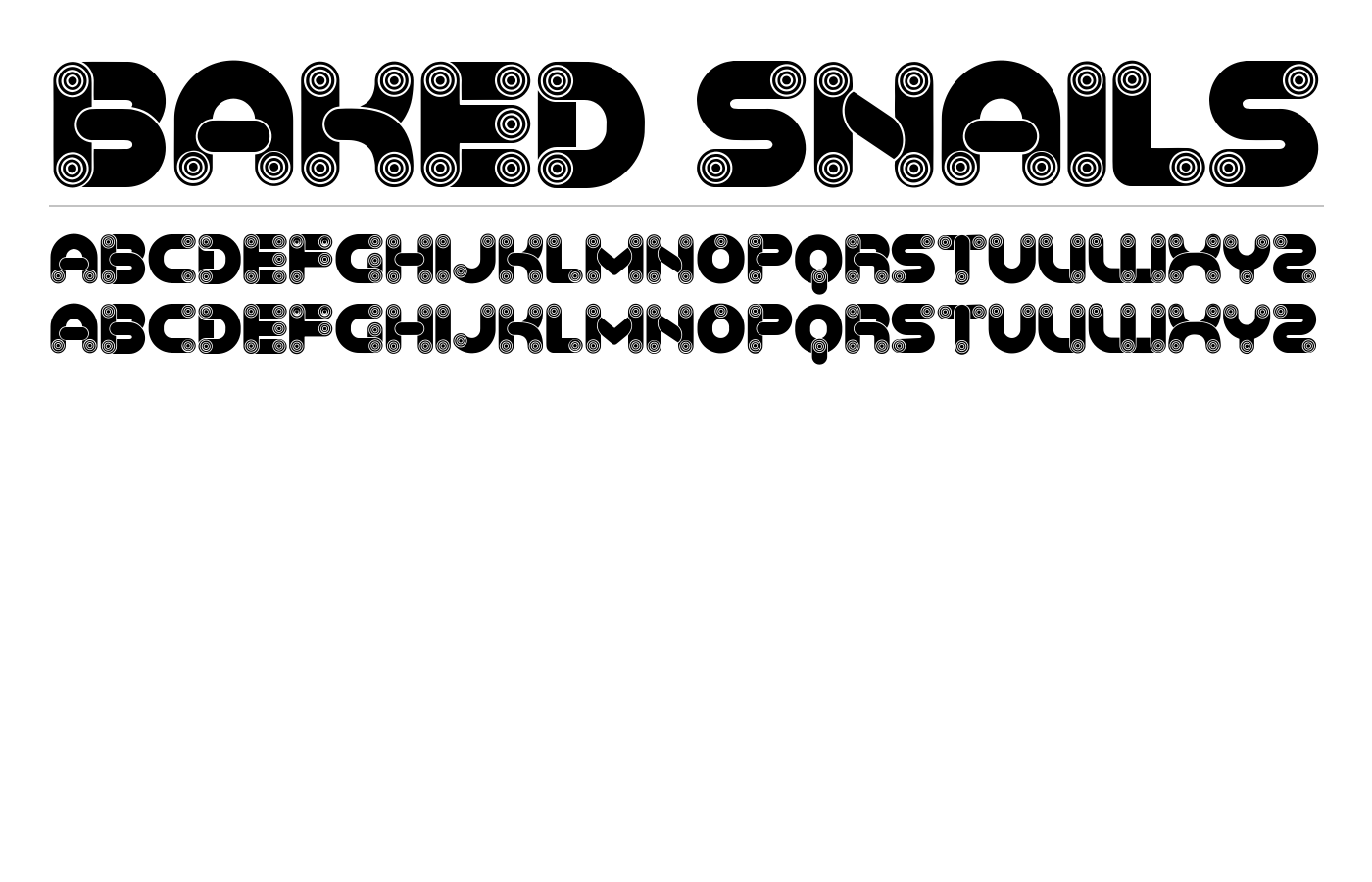
Baked Snails is a bold, playful display font with a unique geometric design featuring rounded shapes and spiral motifs reminiscent of snail shells. Its chunky, wide letterforms create a fun, retro-futuristic vibe that works perfectly for eye-catching headlines, logos, and creative branding where a quirky and memorable style is desired. This font is ideal for projects aiming to convey whimsy and originality with a strong visual impact.
Baked Snails Font
About Baked Snails Font